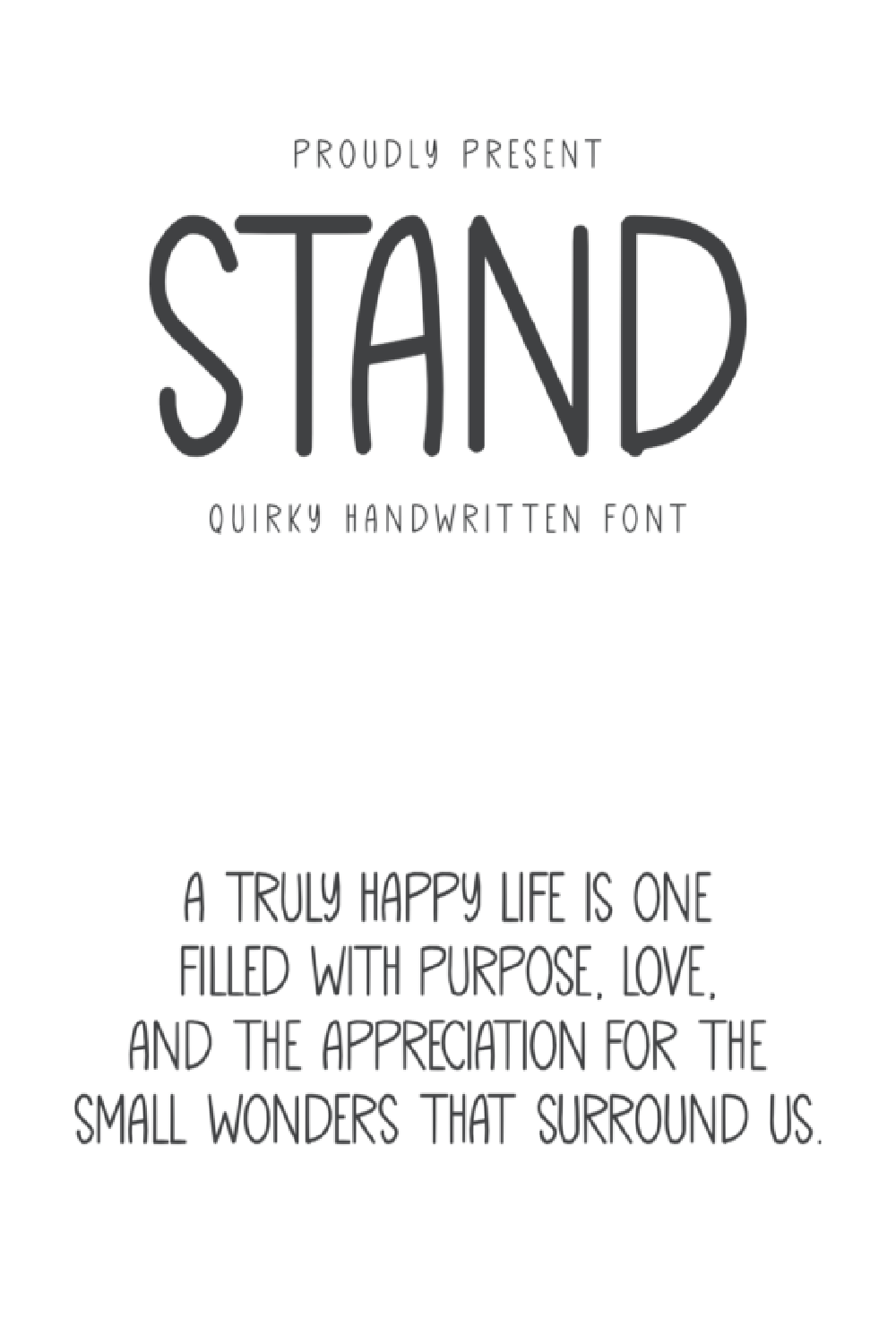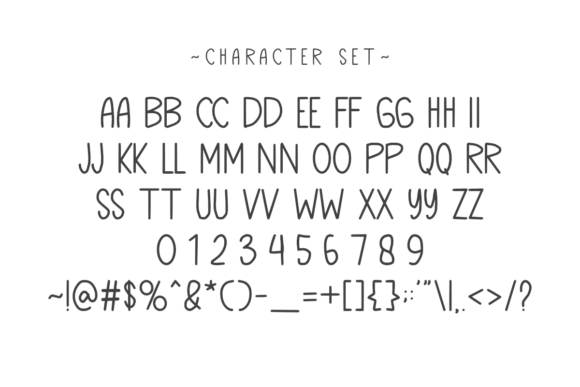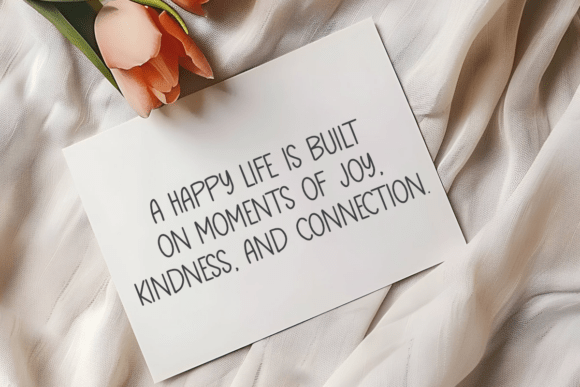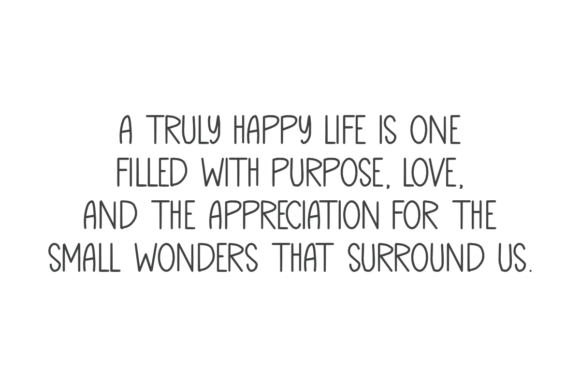
Stand Font: A Quirky Handwritten Font for Cute Designs
About the Stand Font
Crafted with precision, the Stand Font is ready to bring your ideas to life. Stand is a natural handwritten font with an original, organic design. Its natural and unique style makes it incredibly fitting to a large pool of designs. The only limit is your imagination!